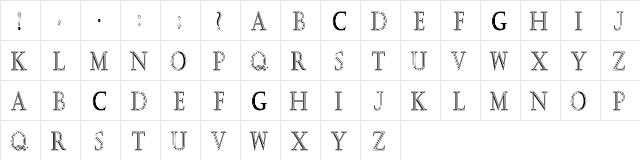
WinderrarHC Regular
Design Context for WinderrarHC Typeface
WinderrarHC takes a measured approach to typography — its balanced proportions and neutral character make it a reliable workhorse for both digital and print work.